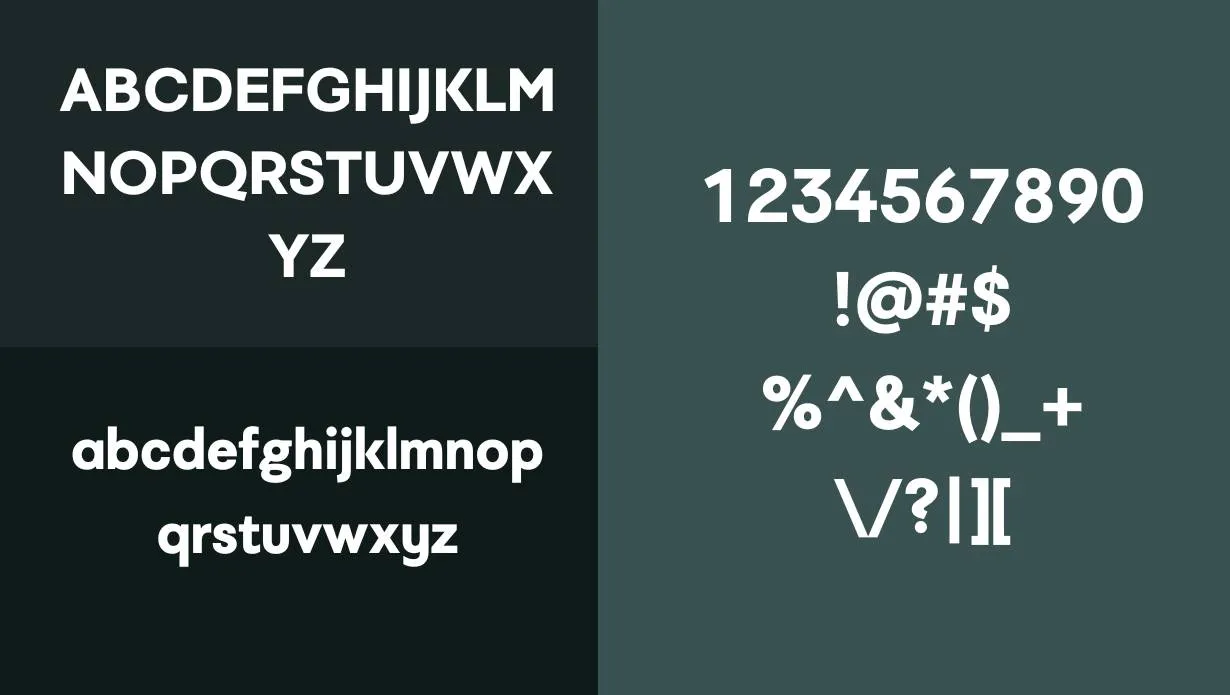
PF UEFA font is the sports anthem your words have been waiting for—bold, dynamic, and ready for action. When you use it, your text becomes a cheering crowd, full of energy and enthusiasm. It’s perfect for crafting sports-related designs or posters that capture the spirit of the game.
PF UEFA’s letters are like athletes in their prime, each one contributing to the overall pulse of excitement in your message.